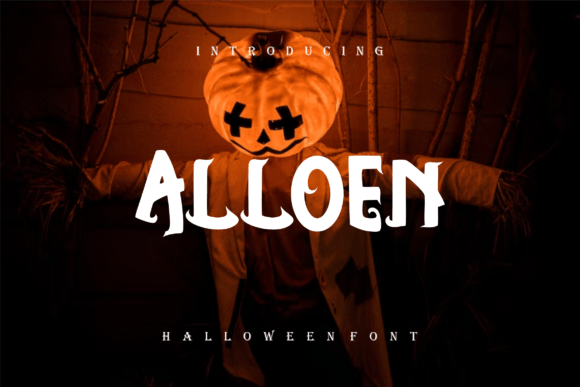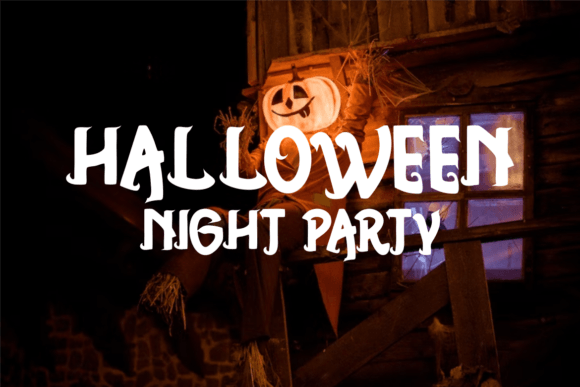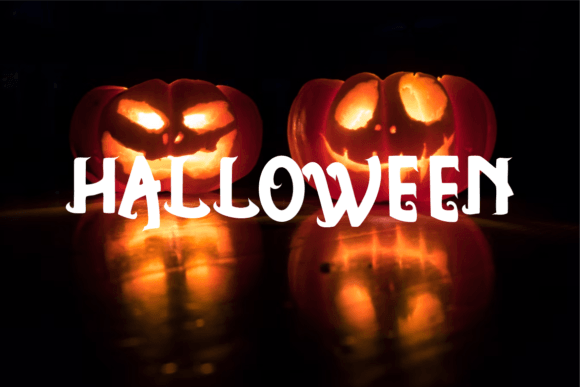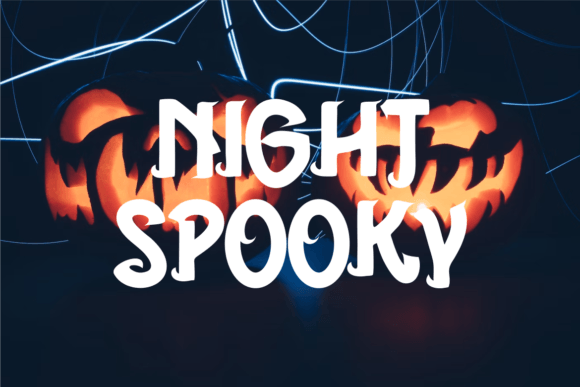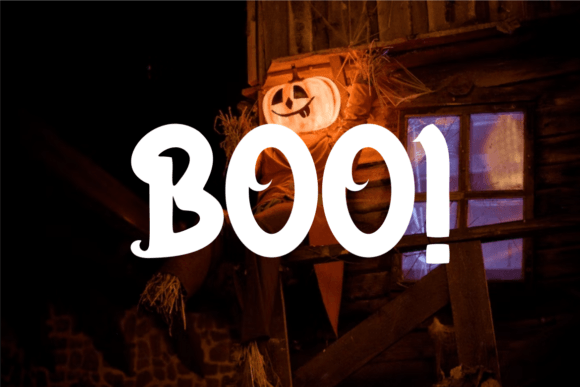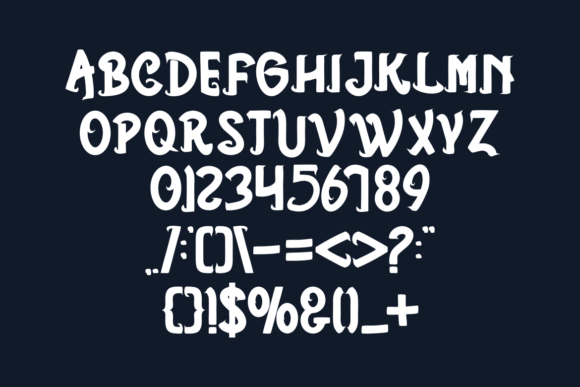
Alloen
Alloen: A Modern and Unique Slab Serif Font
Alloen is a modern slab serif font that combines beautiful, unique, and slightly spooky design elements. This versatile typeface is perfect for various projects, from signatures and stationery to branding and packaging design.
Key Features of Alloen
• Modern Design: Offers contemporary appeal with refined elements.
• Unique Style: Brings distinctive character to designs.
• Spooky Appeal: Features subtle eerie elements.
• Versatile Application: Adapts well to numerous design contexts.
Best Uses for Alloen
Thanks to its versatile characteristics, Alloen works especially well for:
When using Alloen in your designs, keep these tips in mind:
• Try it for headlines or display text to showcase its unique style.
• Use different sizes to highlight its modern features.
• Pair with simpler fonts for body text to create balance.
• Let its spooky character enhance themed projects.
To sum up, Alloen is an excellent choice for designers seeking a modern and unique slab serif font with a touch of spookiness. Its versatility makes it perfect for a wide range of projects. Whether you’re creating wedding materials, designing logos, or developing branding packages, Alloen offers the perfect blend of contemporary style and distinctive character.
Furthermore, Alloen’s distinctive design allows it to shine in contexts where both modernity and uniqueness are key. For instance, from stationery to website headers, this font can elevate your projects with its refined style. Also, its modern yet slightly spooky appearance works particularly well in designs that aim to make a memorable impact.
In conclusion, Alloen truly captures the essence of modern uniqueness in slab serif typography. Its versatility across different applications shows how well it can serve various creative needs. Therefore, for those wanting to add a touch of contemporary sophistication with a hint of mystery to their work, Alloen can enhance any design with its distinctive style. Ultimately, it’s perfect for designers aiming to make an elegant, modern impact across a wide range of creative projects.